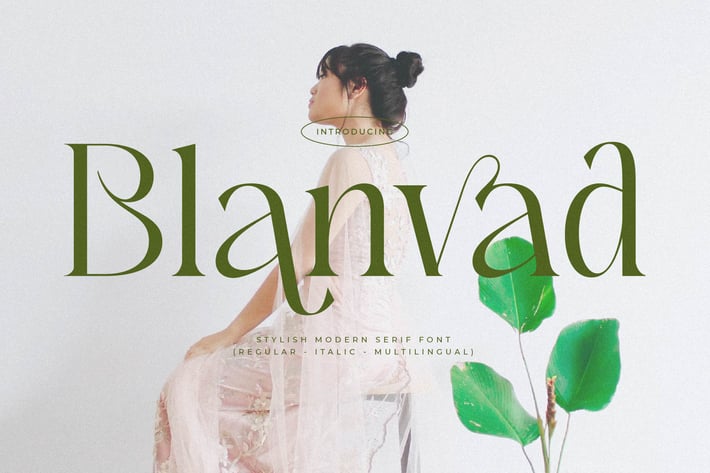
Blanvad Stylish Modern Serif Font
Blanvad Stylish Modern Serif Font brings an elegant, editorial-inspired serif style with refined curves and a soft contemporary touch. Designed to elevate visual storytelling, this font adds a luxurious and botanical feel to any creative project.
Stylish modern serif design
Organic, high-contrast letterforms
Regular & Italic styles
Perfect for premium, editorial, or botanical aesthetics
Branding & visual identity
Editorial layouts
Fashion & lifestyle content
Packaging design
Invitations & stationery
Social media aesthetics
A refined serif crafted to bring modern elegance and quiet luxury into every design.